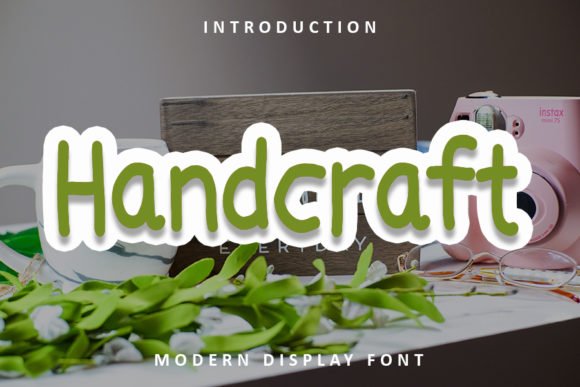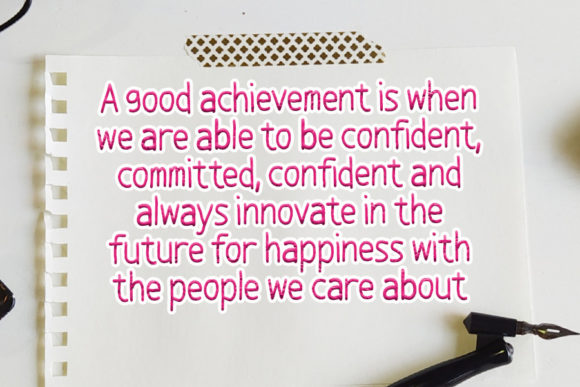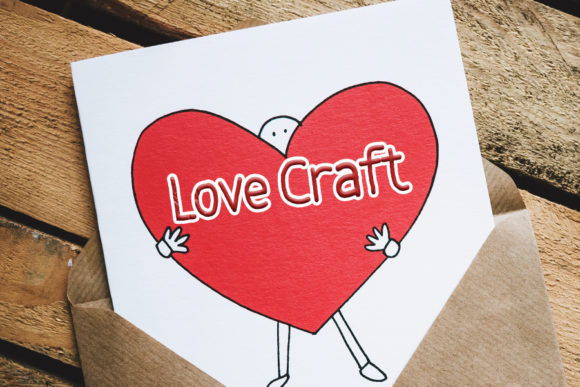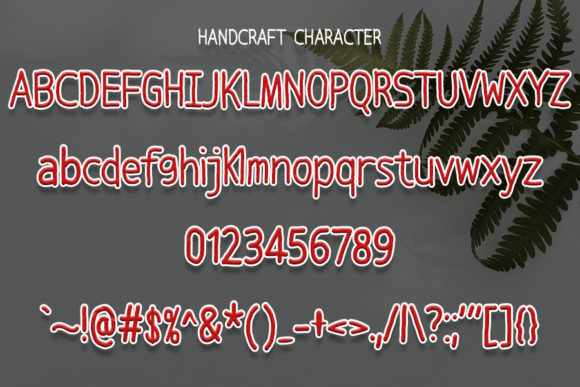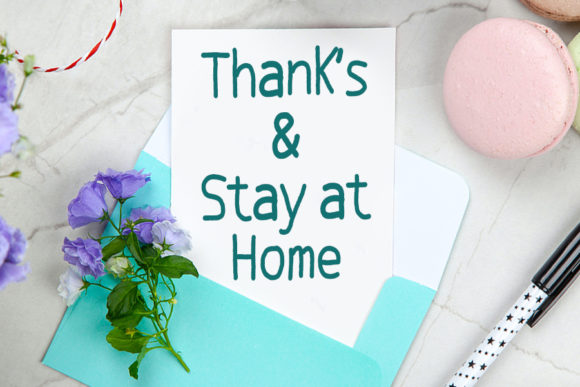
The Perfect Blend of Trendiness and Timelessness: Introducing Handcraft Font
You know that moment when you’re brainstorming ideas for a new project, and everything just clicks? The fonts, the colors, the layout – it all comes together in a beautiful, cohesive package. For designers, this moment is what drives creativity and sparks inspiration. And when you’re working on a project that requires a touch of elegance and sophistication, the Handcraft Font is the perfect tool to help you achieve that.
This simple yet stylish display font is designed to add a touch of trendiness to any design, making it perfect for crafting, digital designing, presentations, or even greeting card making. With its clean lines and classic feel, the Handcraft Font is a valuable asset for any designer looking to elevate their work. Whether you’re a seasoned pro or just starting out, this font is sure to become a favorite in your design arsenal.
Handcraft Font Key Features
- Unique Characteristics: Handcraft Font features a distinctive, hand-drawn design with intricate details and subtle texture, giving it a unique and artistic feel.
- Character Set: The font includes a comprehensive character set, including Latin, Cyrillic, and Greek alphabets, as well as a range of punctuation and symbol characters.
- Font Weight and Style: The font is available in a single weight and style, but can be easily customized using font software to create a range of different weights and styles.
Handcraft Font Review
I’ve had the chance to work with Handcraft Font, and I must say it’s a solid choice for designers looking for a unique, handmade feel. ✨ The font’s imperfections and subtle variations make it perfect for projects where you want to add a touch of personality.
- ✨ Unique character set: Handcraft Font offers a wide range of characters, including accents and symbols, making it a great choice for designers who need to work with international languages.
- ✨ High-quality kerning: The font’s kerning is well-done, ensuring that text looks crisp and even, even at smaller font sizes.
- ✨ Versatility: Handcraft Font works well in a variety of contexts, from print to digital projects.
- ⚠️ Limited font sizes: While Handcraft Font looks great at larger font sizes, it can become blurry and difficult to read at smaller sizes.
- ⚠️ Limited language support: While the font includes a wide range of characters, it may not support all languages or character sets.
Overall, I’m impressed with Handcraft Font’s unique feel and high-quality design. While it may have some limitations, it’s a great choice for designers who want to add a touch of personality to their projects.
Tips for Getting the Most Out of Handcraft Font
Use Handcraft Font for creative projects such as invitations, posters, and wedding stationery.
Experiment with different font sizes, colors, and combinations to create unique and eye-catching designs.
Handcraft Font is perfect for:
Party invitations and decorations
Artistic posters and prints
Playfair Display is a high-end serif font that is ideal for luxury branding, fine art, and high-end publications. It features elegant and sophisticated lettering, making it a great choice for designers who want to add a touch of sophistication to their designs.
Compared to Handcraft Font, Playfair Display has a more refined and elegant feel, making it suitable for high-end projects. While Handcraft Font has a more rustic and vintage feel, Playfair Display is perfect for projects that require a touch of luxury and sophistication.